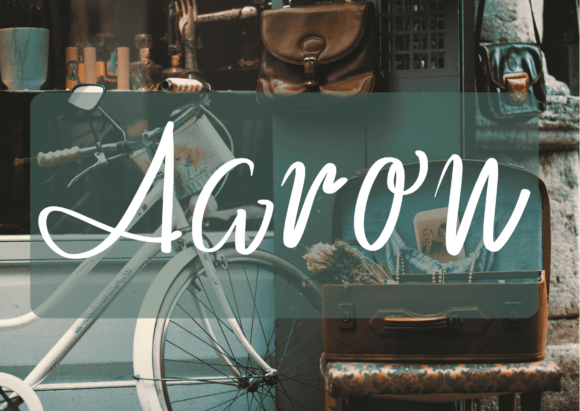
Welcome to the enchanting world of Aaron Font, a script typeface designed to evoke the magic of handwritten notes and create designs that touch the heart. Inspired by the beauty of traditional calligraphy, Aaron Font is a captivating fusion of elegance and warmth.
Dive into a world of romance and charm as Aaron Font transforms your designs into timeless expressions of love. Its delicate strokes and graceful curves are a feast for the eyes, inviting your readers to immerse themselves in the joy of every word.
With Aaron Font, you'll discover a font that knows how to make a statement without overpowering your design. Its refined presence adds a touch of sophistication to wedding invitations, greeting cards, and any project that calls for a personal touch.
Let your creativity flourish as you explore the endless possibilities of Aaron Font. Whether you're creating beautiful logos, captivating posters, or simply adding a touch of elegance to your social media posts, Aaron Font is your perfect companion.
Unleash your inner artist and let Aaron Font guide your hand as you craft designs that capture the essence of love and joy. With its versatility and charm, Aaron Font is the perfect choice for designers and creatives who want to create designs that resonate with their audience.